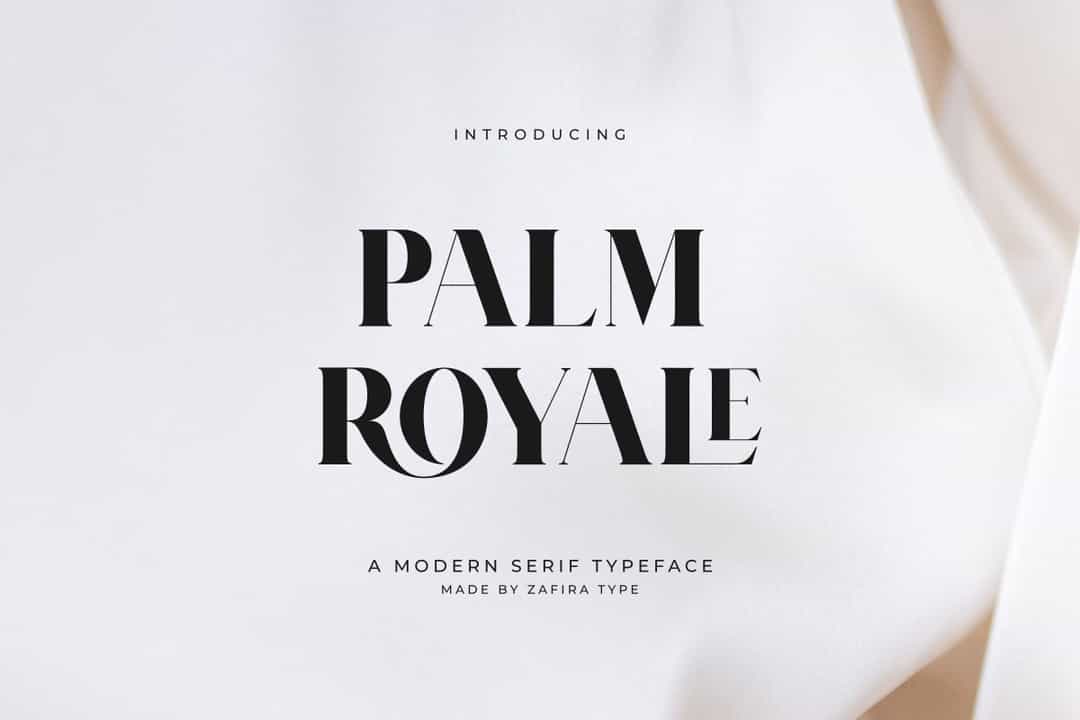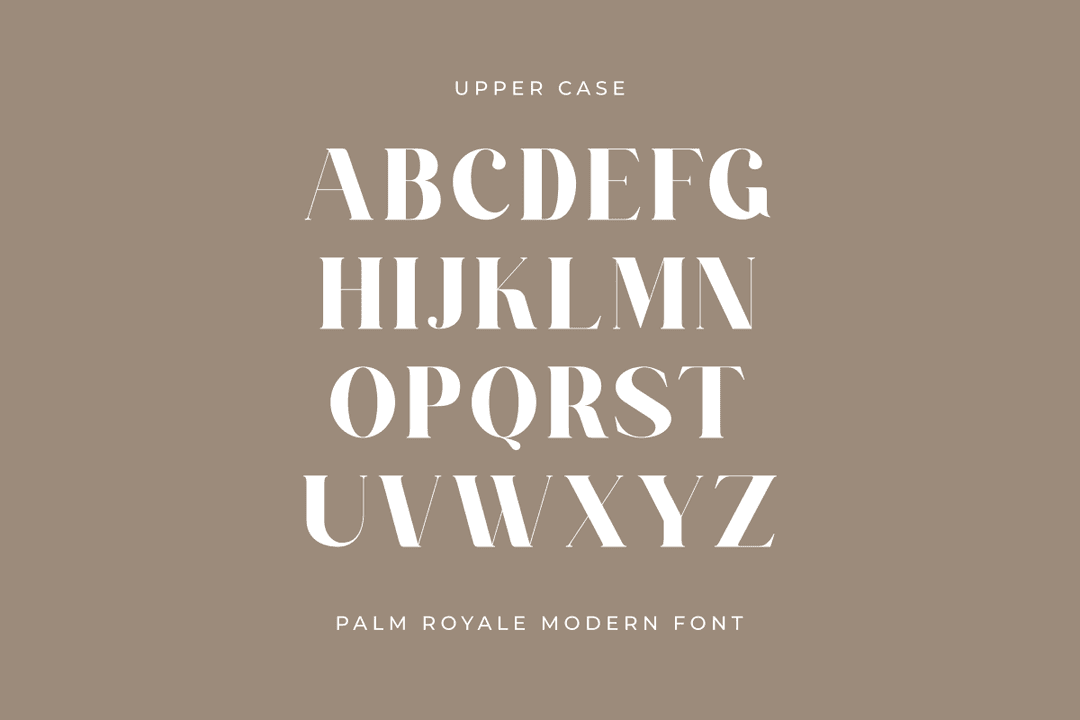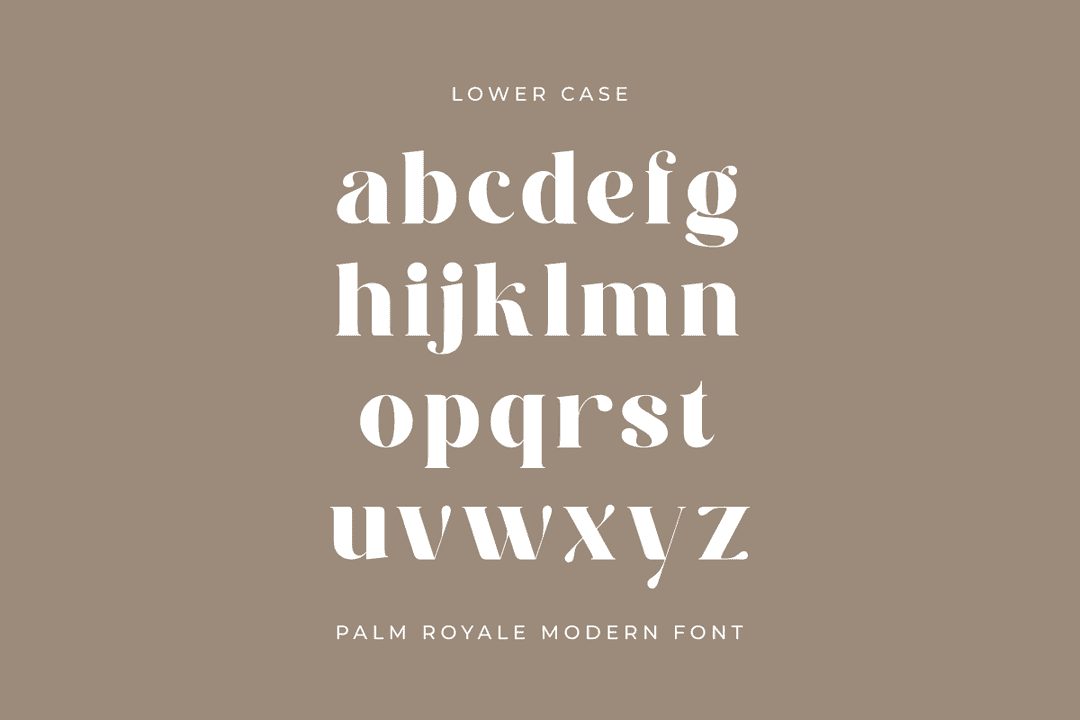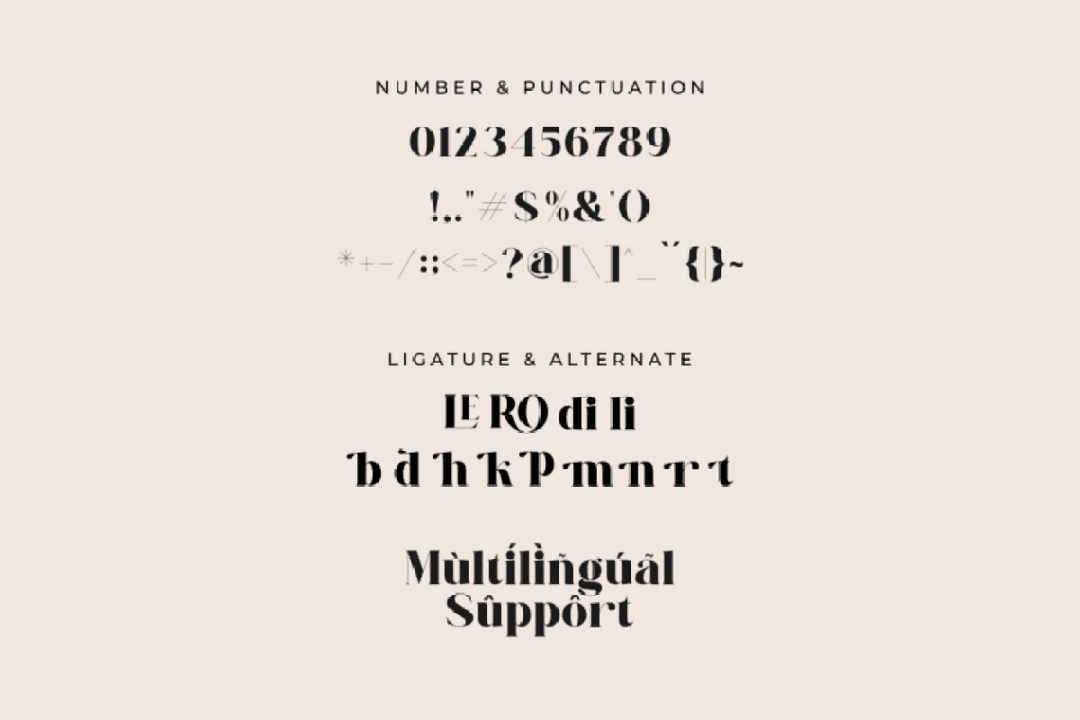
Palm Royale is an elegant serif font that blends timeless sophistication with contemporary design. Featuring smooth yet sturdy lines, its smooth and sturdy appearance conveys class in all designs, whether printed materials or electronic.